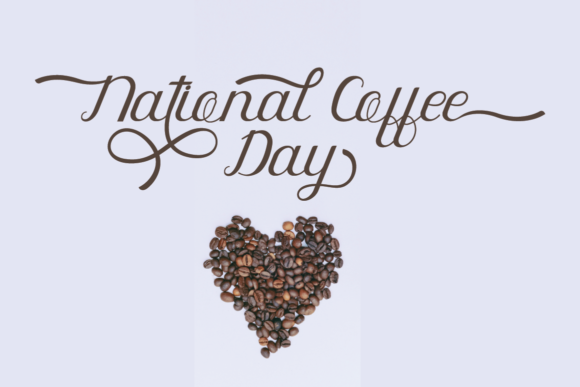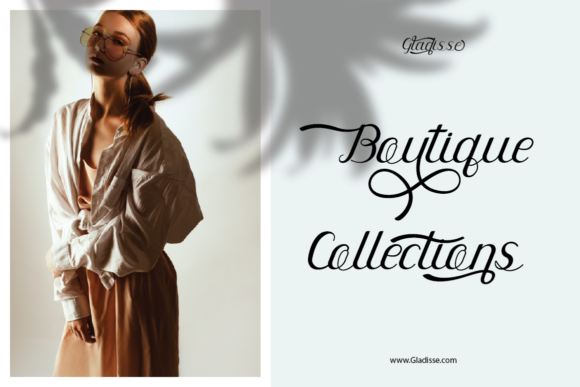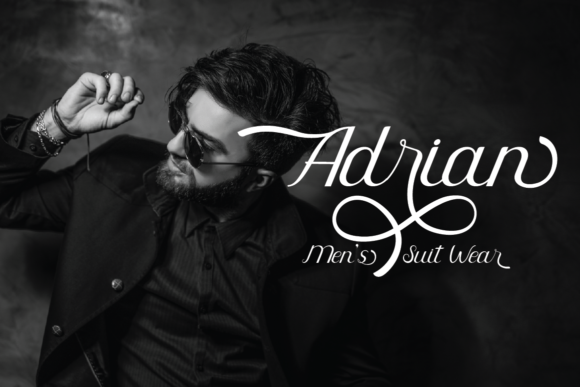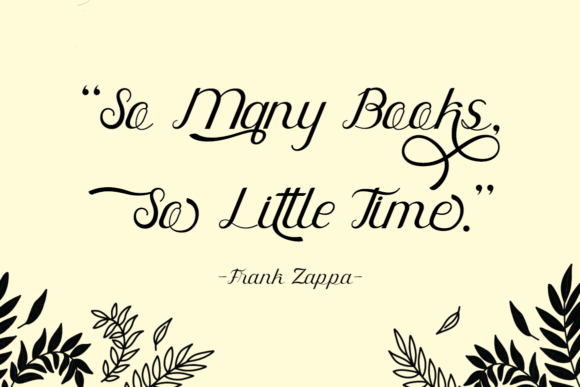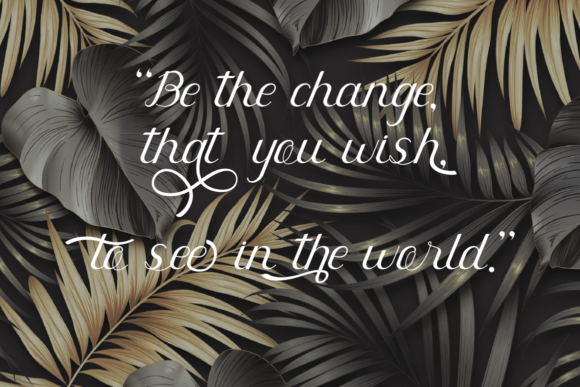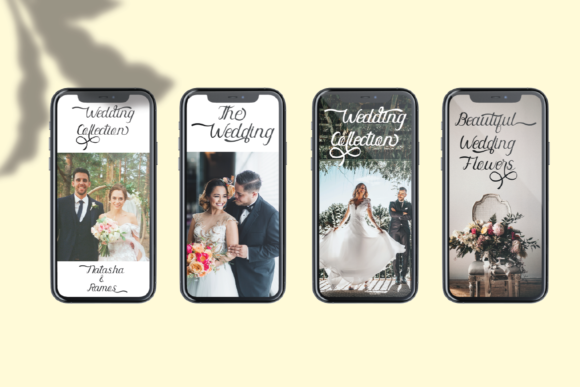
Introduction to Rahaely Font
As a designer, there’s nothing quite like the thrill of discovering a new font that perfectly captures the essence of your creative project. For me, that moment came when I stumbled upon the Rahaely Font – a stunning, handwritten font that exudes luxury and sophistication.
Imagine you’re planning a wedding, and you need to create the perfect invitation. You want something that will transport your guests to a world of elegance and refinement. That’s where Rahaely Font comes in – with its high-quality, PUA-encoded design, it’s the perfect tool for adding a touch of handwritten charm to your design. Whether you’re working on a free download project or a paid one, this font is a valuable resource that will elevate your designs to the next level.
With its transparent background and seamless swashes, Rahaely Font is a game-changer for designers looking to add a personal touch to their work. In this article, we’ll take a closer look at what makes this font so special and how you can use it to take your designs to new heights.
Key Features of Rahaely Font
- Transparent background option for seamless integration
- Font size: 1,032 glyphs, including Latin and Cyrillic characters
- Unique characteristic: Elegant and modern script font with a touch of sophistication
Honest Review: Rahaely Font
I recently had the chance to work with the Rahaely Font, and I must say it’s been a great addition to my design arsenal. This beautiful font is perfect for any creative project that requires a touch of elegance and sophistication.
Here are some of the features that make the Rahaely Font stand out:
- High quality and clear typography ✨
- Compatible with a variety of backgrounds, including transparent backgrounds
- Perfect for creative projects that require elegance and sophistication
However, I did encounter a few limitations with the Rahaely Font. One of the main issues I faced was the limited character set, which made it difficult to use for longer pieces of text ⚠️. Additionally, the font may not be suitable for use in smaller sizes, as it can become difficult to read.
Overall, I was impressed with the Rahaely Font and would definitely recommend it to designers looking for a high-quality font for their creative projects. With a little planning and attention to detail, it can be a valuable addition to any design resource collection.
Tips for Getting the Most Out of Rahaely Font
To maximize the potential of the Rahaely Font, experiment with different font sizes, colors, and styles. Combine it with other design elements, such as images and graphics, to create a visually appealing design. Use it in a variety of creative projects, from business presentations to social media graphics.
The Rahaely Font is ideal for a range of creative projects, including:
- Business presentations
- Website headers and footers